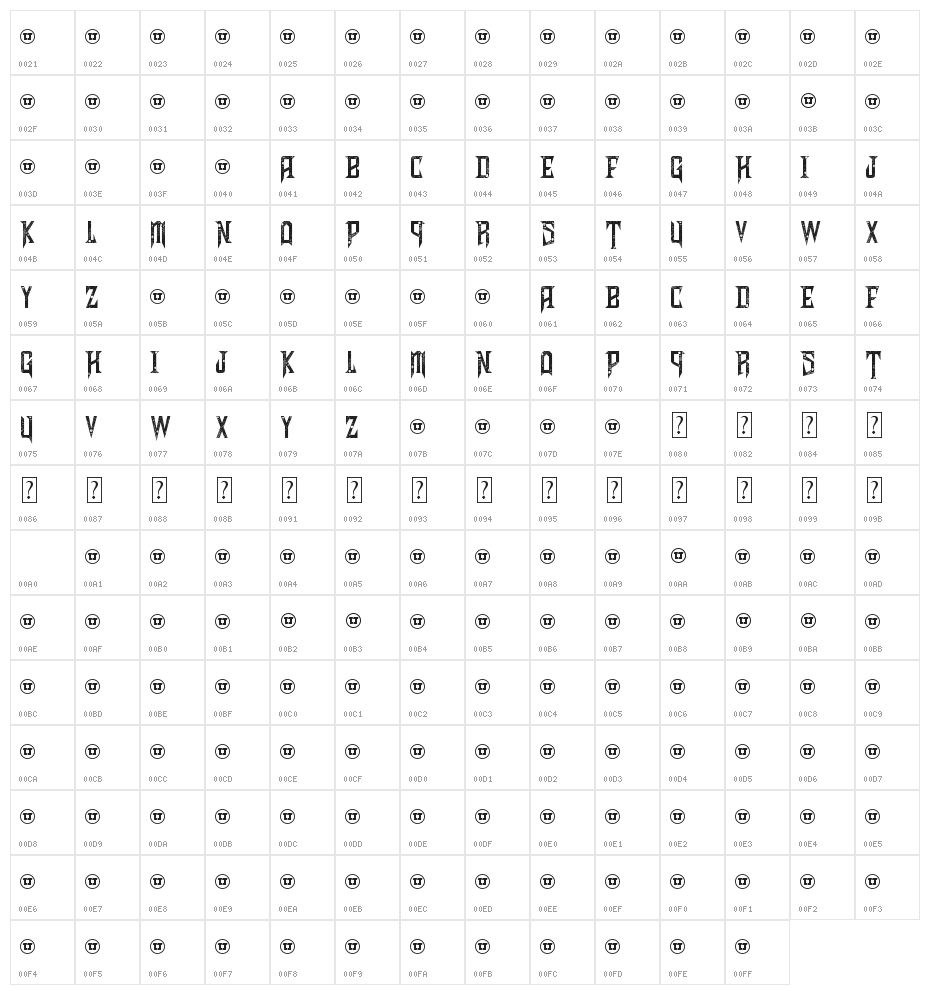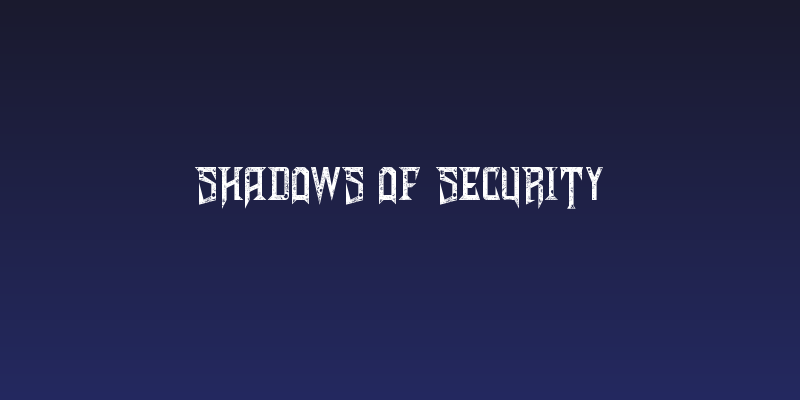
Shadows of Security Font
Shadows of Security Description
This font features a bold, angular design with a distressed texture, giving it a gritty and edgy appearance. The characters are sharply defined with pointed edges and a blocky structure, reminiscent of a futuristic or industrial style. The texture within the letters adds a layer of complexity, making it suitable for projects that require a strong visual impact. The uppercase letters dominate the design, with no lowercase or numerical characters present. This font is ideal for creating a sense of strength and security, often used in contexts that require a bold statement.
| Overall Style | Modern, Industrial |
| Proposed Projects | Ideal for posters, album covers, video game titles, and branding that requires a strong, edgy look. |